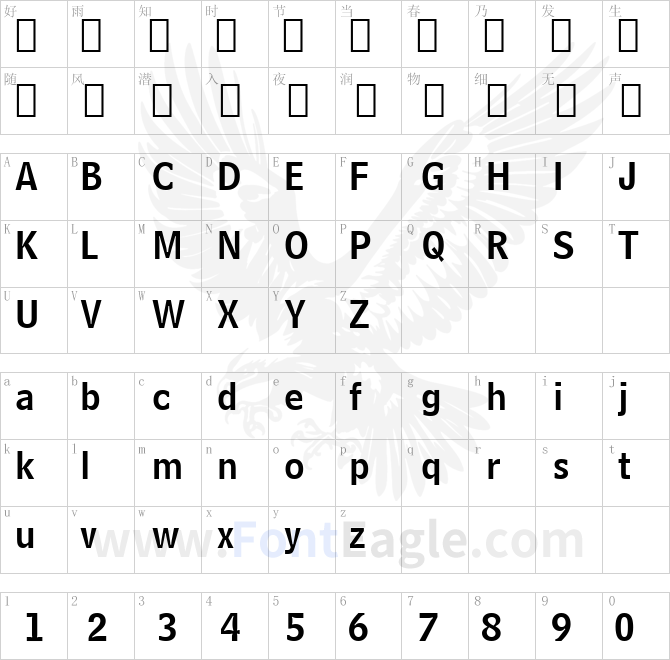
- Font name:BellCent NamNum BT
- Font Subfamily:Name and Number
- Font Subfamily ID:Bell Centennial Name & Number, Gothic 762
- Font Full Name:Bell Centennial Name and Number BT